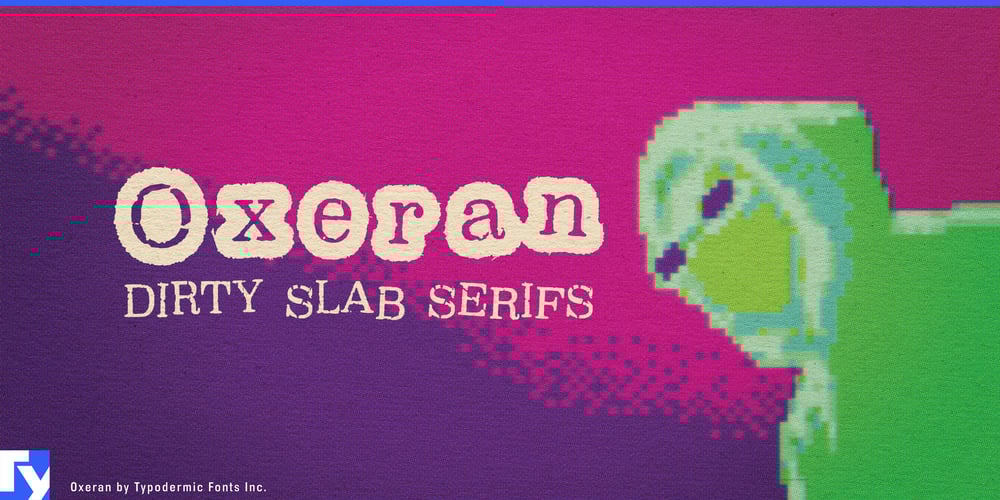
Oxeran Font Family was designed by Ray Larabie and published by Typodermic. Oxeran contains 2 styles and family package options. Oxeran and Oxeran Z: typographic anarchy unleashed. These Typodermic Fonts creations aren’t just typefaces—they’re a middle finger to convention, a primal scream etched in pixels.Forget polished perfection. Oxeran and Oxeran Z revel in their own filth, each character a battle-scarred veteran of typographic warfare. Jagged edges slice through design norms, while rough textures grate against the eye, daring viewers to look away—and failing. This is punk incarnate, distilled into pure visual aggression. But beneath the chaos lurks method. OpenType-savvy letter pair ligatures shatter the monotony of repetition, injecting a frenetic energy that mirrors the restless spirit of rebellion. It’s typography on amphetamines, each word a powder keg of pent-up rage ready to explode off the page or screen.In headlines, these fonts don’t just speak—they snarl, they spit, they howl. They’re the perfect voice for album art that makes parents nervous, for protest posters that demand revolution, for brand identities that scream “conformity be damned.” Oxeran and Oxeran Z don’t politely ask for attention—they seize it by the throat. Yet for all their fury, these fonts are ruthlessly functional. Supporting a vast swath of Latin-based European writing systems, they ensure your message of defiance translates across borders. From Afrikaans to Zulu, Oxeran and Oxeran Z speak the universal language of dissent.This isn’t typography for the timid. It’s for designers who see their work as a weapon, who understand that true impact comes from unapologetic authenticity. Oxeran and Oxeran Z are more than fonts—they’re a call to arms in a world drowning in bland conformity.